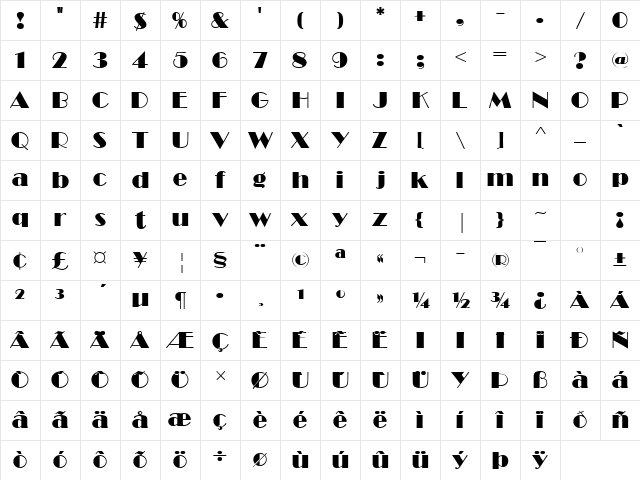
Broadway Becker Poster Regular
Design Context for Broadway Becker Poster
Broadway Becker Poster is a composed and adaptable typeface that performs quietly and consistently across a wide range of design contexts.